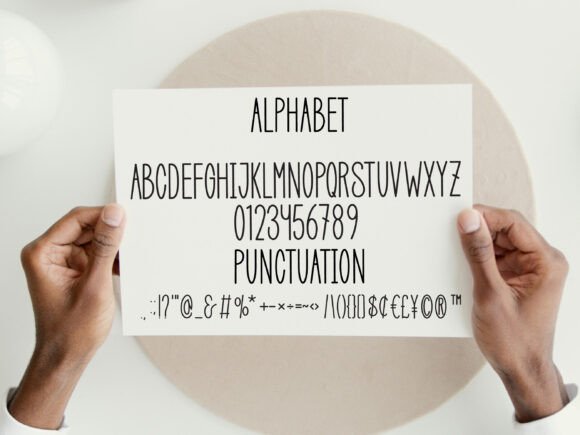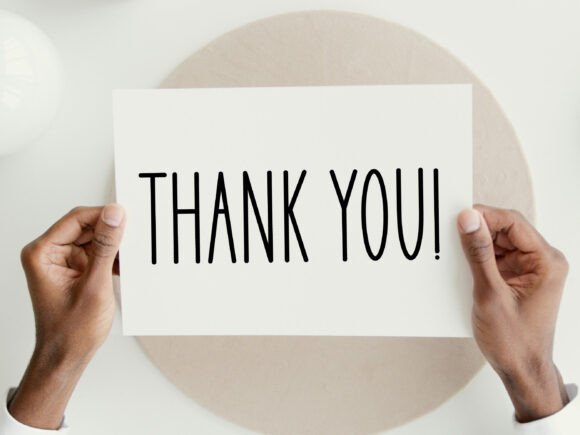
Introducing Farmhouse Charming Font: A Timeless Blend of Vintage and Modern Elegance
Are you a designer, crafter, or DIY enthusiast looking for a font that captures the essence of rural living? Look no further than Farmhouse Charming Font, a beautiful blend of vintage and modern elements that evoke the warmth and coziness of the countryside. In this article, we’ll explore the unique features of this stunning font and how it can elevate your designs, from wedding invitations to home decor and branding.
A Perfect Blend of Vintage and Modern
Farmhouse Charming Font is a carefully crafted typeface that combines the best of both worlds – the classic charm of vintage fonts and the sleek sophistication of modern design. The result is a font that exudes a sense of rustic elegance, perfect for creating designs that feel both nostalgic and fresh. Whether you’re looking to create a warm and inviting atmosphere or a more refined and sophisticated look, Farmhouse Charming Font is the perfect choice.
Key Features of Farmhouse Charming Font
- Vintage-inspired lettering: Each letter has been carefully designed to evoke the classic feel of traditional farmhouse signs, with subtle imperfections and character.
- Modern sensibilities: The font’s clean lines, balanced proportions, and elegant curves ensure it remains highly legible and versatile.
- Elegant and refined: Farmhouse Charming Font is perfect for creating sophisticated designs that still feel approachable and down-to-earth.
- Highly versatile: Use it for a wide range of design projects, from wedding invitations and home decor to branding and packaging.
Perfect for Wedding Invitations and Stationery
Farmhouse Charming Font is an ideal choice for wedding invitations, save-the-dates, and other stationery. Its vintage charm and modern sophistication make it perfect for creating beautiful, rustic-chic designs that set the tone for a special day. Use it to create:
- Elegant wedding invitations that feel both classic and contemporary.
- Beautiful stationery, such as notecards, letterheads, and gift tags.
- Charming wedding programs, menus, and place cards.
Elevate Your Home Decor with Farmhouse Charming Font
Farmhouse Charming Font is not just limited to digital designs – it’s also perfect for creating beautiful home decor items. Use it to:
- Create custom wall art, such as wooden signs, canvas prints, or chalkboard labels.
- Design beautiful stationery, such as greeting cards, gift tags, and wrapping paper.
- Personalize home decor items, like vases, mugs, and tote bags.
Branding and Packaging Made Easy
Farmhouse Charming Font is also an excellent choice for branding and packaging. Its unique blend of vintage and modern elements makes it perfect for:
- Creating eye-catching labels, packaging, and product designs.
- Developing a cohesive brand identity that feels both rustic and refined.
- Designing business cards, brochures, and other marketing materials.
Get Creative with Farmhouse Charming Font
| Author | FunCuteFonts |
Farmhouse Charming Font is a stunning typeface that combines the best of vintage and modern design. Its unique blend of elegance and rustic charm makes it perfect for creating a wide range of designs, from wedding invitations to home decor and branding. With its high versatility, beautiful lettering, and modern sensibilities, Farmhouse Charming Font is an essential tool for designers, crafters, and DIY enthusiasts looking to add a touch of rural charm to their creations.